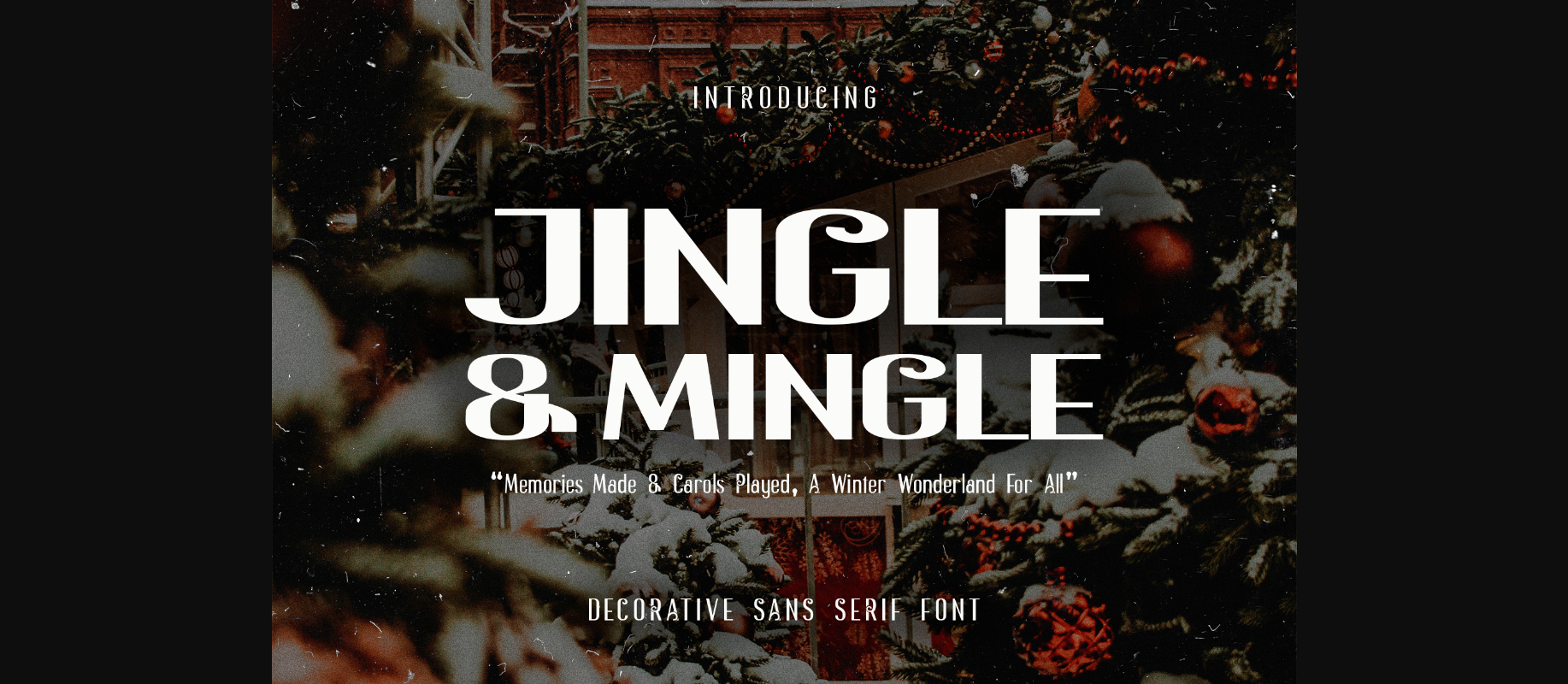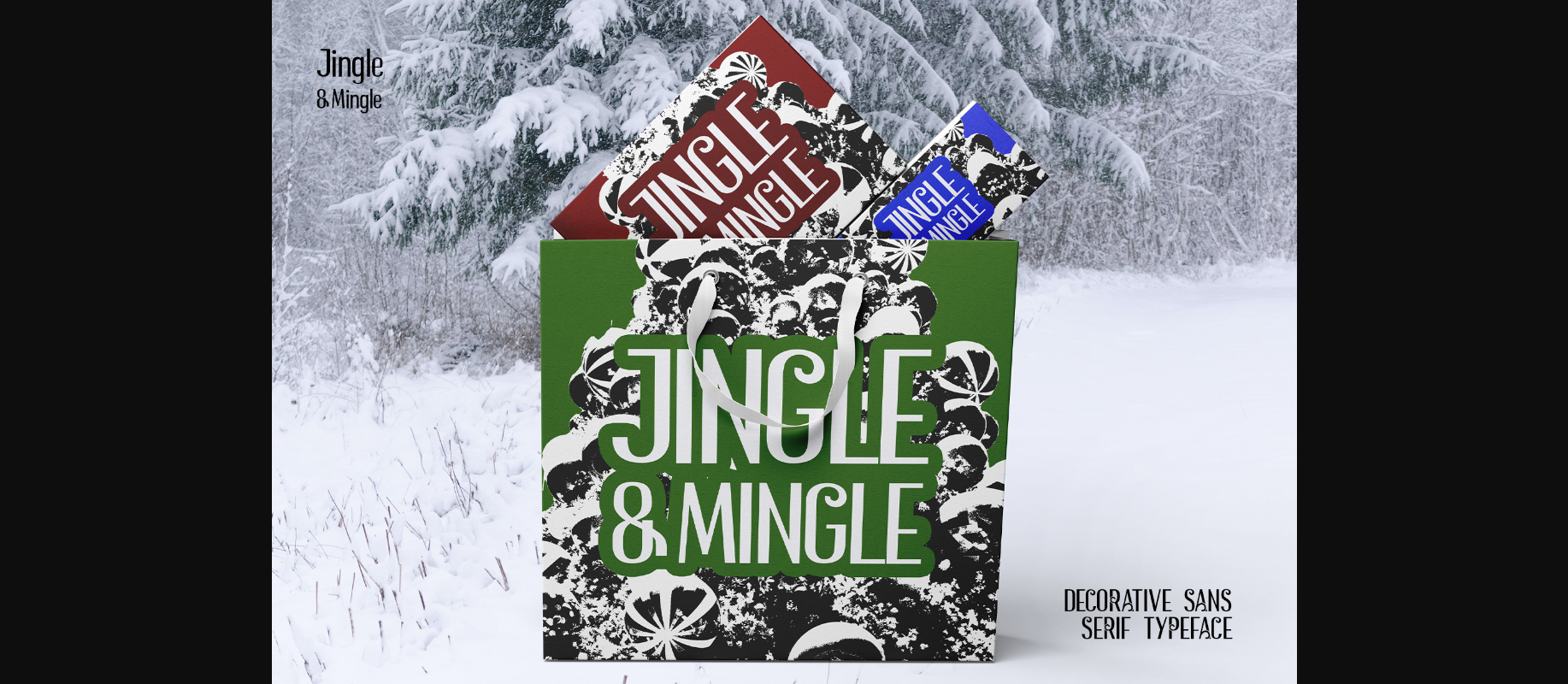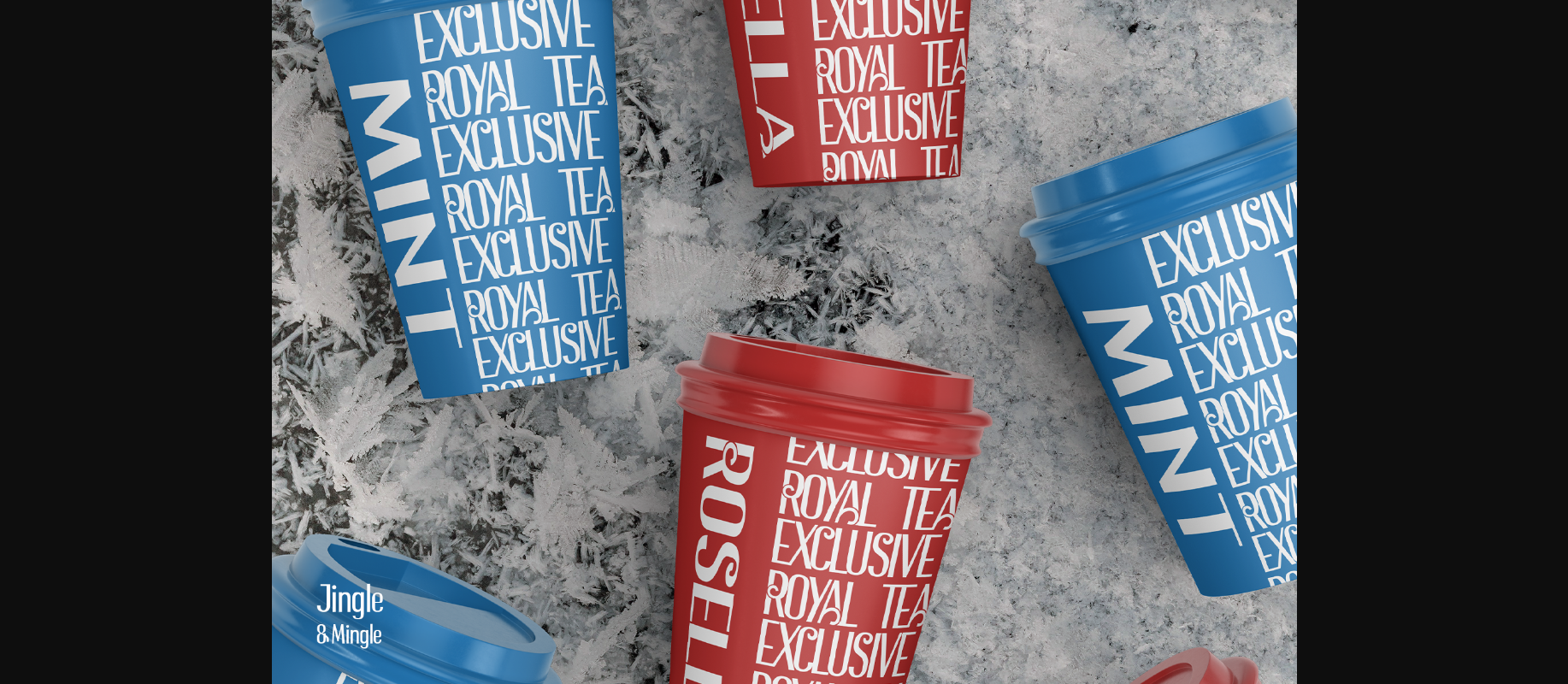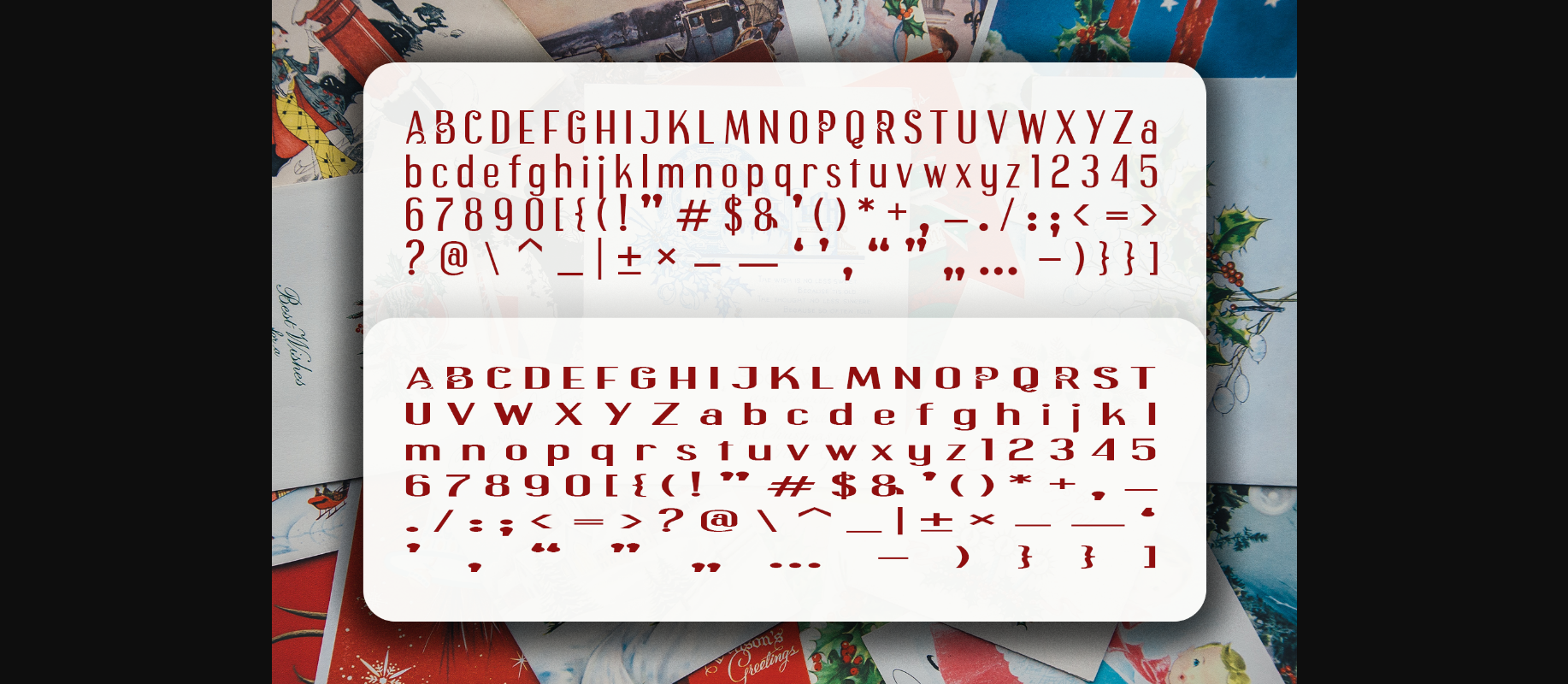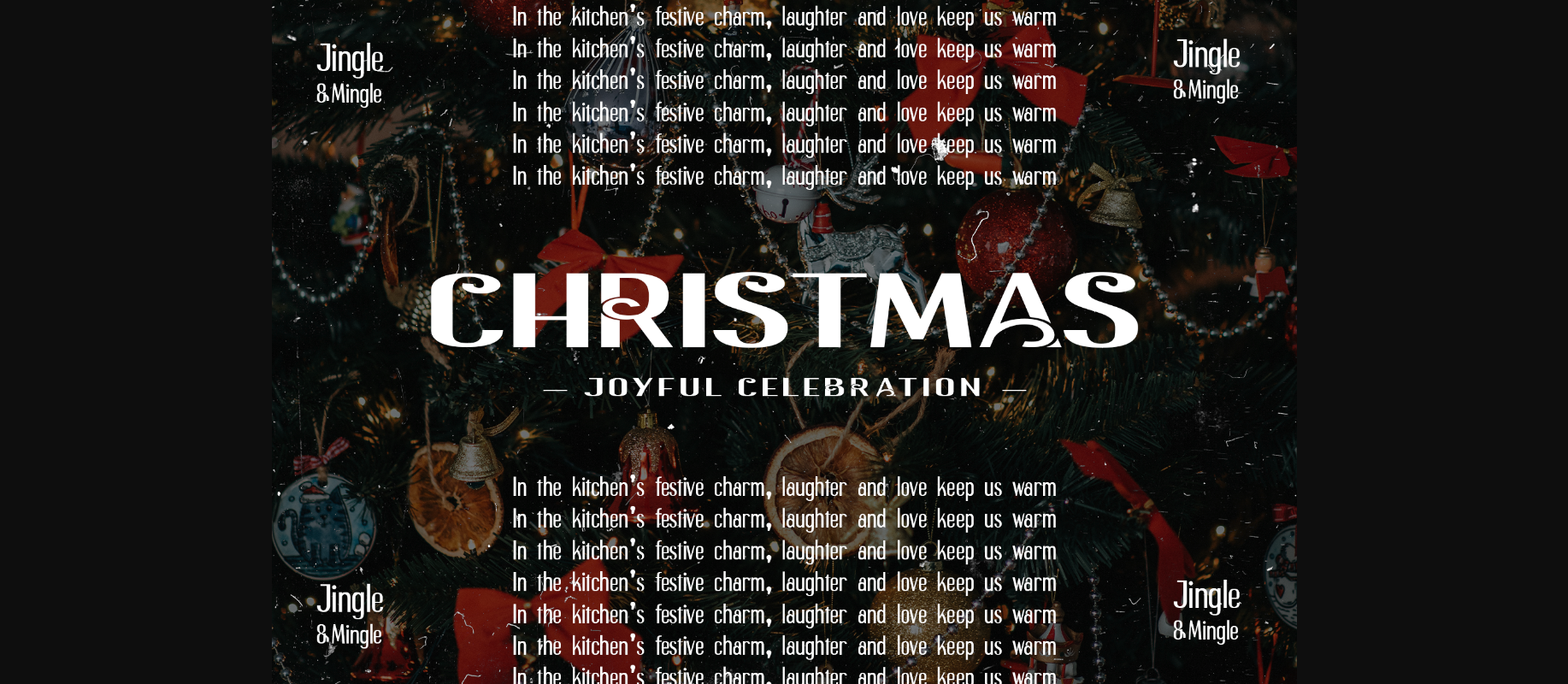
About Jingle & Mingle Font
Jingle & Mingle – dances beyond the confines of a “decorative” sans-serif. This dual-width wonder, condensed for punchy impact and expanded for playful grace, is adorned with charming swashes and elegant curves. Both share a foundation of warmth and approachability, making them perfect for branding, invitations, and connecting with your audience on a personal level. Jingle and Mingle isn’t just playful, it’s a versatile professional tool that infuses your designs with whimsy and lasting charm. Choose Jingle and Mingle for a bold choice that whispers sophistication while dancing with delight.